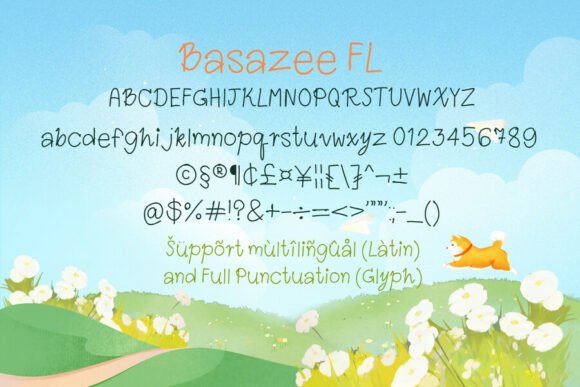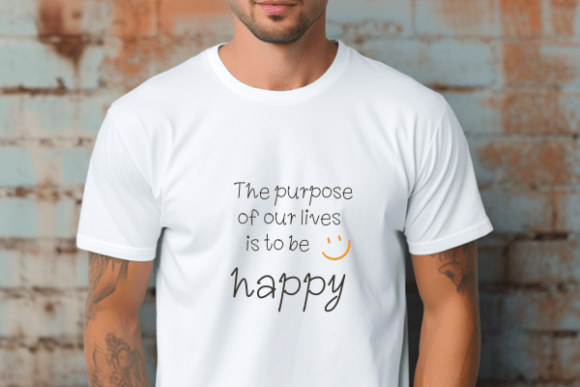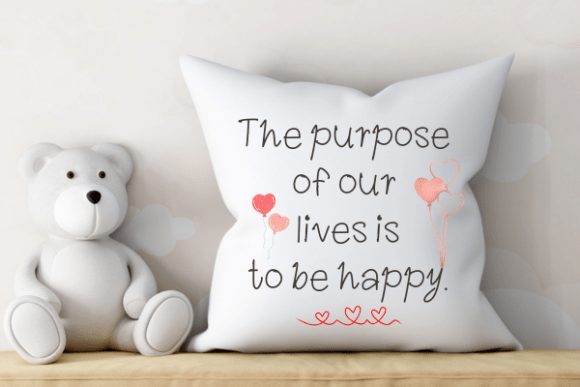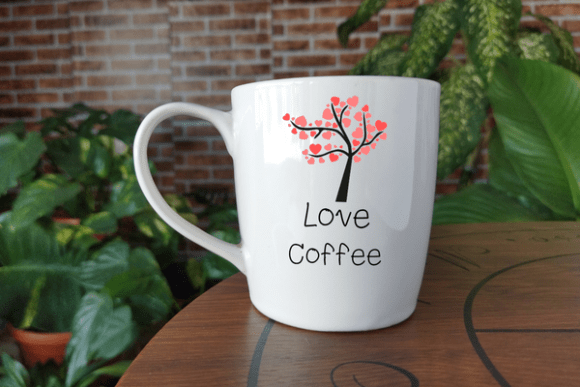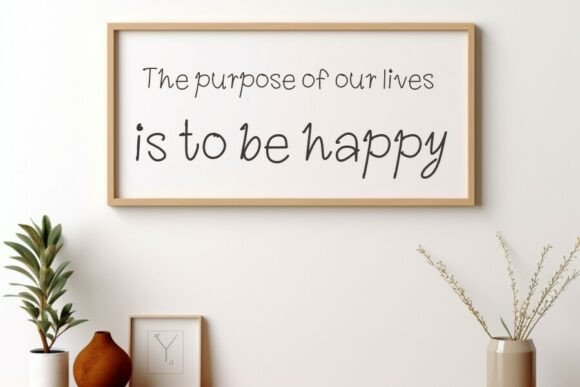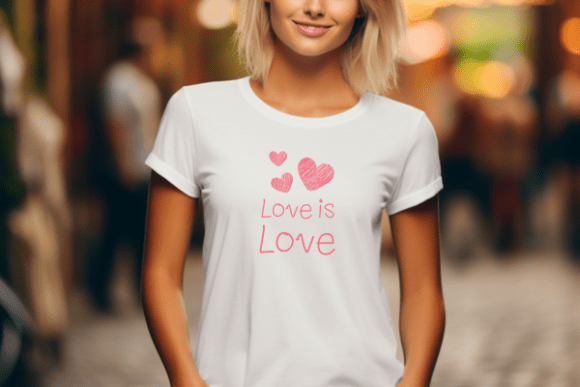
Bring Your Designs to Life with the Quirky Charm of Basazee Fl Font
You know that moment when a spark of creativity hits you, and you can’t wait to bring your idea to life? Maybe it’s a new logo design, a branding concept, or a social media campaign that’s been brewing in your mind. Whatever it is, you need a font that can match the playfulness and charm of your vision. That’s where the Basazee Fl Font comes in – a delightful, handwritten font that’s sure to add a personal touch to your creative projects.
As a designer, you’re constantly on the lookout for unique fonts that can elevate your work. Basazee Fl Font is a valuable addition to your toolkit, offering a friendly and approachable aesthetic that’s perfect for a wide range of applications. Whether you’re creating a children’s book, a food blog, or a lifestyle brand, this font is sure to bring a smile to your audience’s faces.
- Font Family: Basazee Fl is a unique, handwritten font family.
- Character Set: Includes a wide range of characters, including uppercase and lowercase letters, numbers, and punctuation.
- Unique Characteristics: Features a distinctive, flowing style with subtle variations in line width and letterform, giving it a natural, handwritten feel.
Basazee Fl Font Review
Overall, I’d say the Basazee Fl Font has some great qualities, but it also has some limitations. Let’s dive in and explore what works well and what doesn’t. ✨
- Unique aesthetic: The Basazee Fl Font has a distinct, hand-drawn feel that sets it apart from other fonts.
- Expressive: The font is great for conveying emotions and adding a touch of personality to your designs.
- Legibility: Despite its unique look, the font is still relatively easy to read, especially at larger sizes.
- Limited versatility: The Basazee Fl Font is best suited for informal or creative projects, as its unique style may not be suitable for formal or corporate designs.
- Font size limitations: While the font is legible at larger sizes, it can become quite messy at smaller sizes, making it difficult to read.
- Customization limitations: The font’s unique style can make it challenging to customize or pair with other fonts.
The Basazee Fl Font is a great choice for designers looking to add some personality and flair to their projects. While it may have some limitations, its unique aesthetic and expressive qualities make it a great addition to any design arsenal.
The Basazee Fl Font is ideal for use in:
– Creative and artistic projects
– Branding and identity design
– Digital signage and displays
– Print materials and publications
– Social media graphics and advertising
To get the most out of the Basazee Fl Font, try experimenting with different font sizes, colors, and combinations with other fonts. You can also use it in conjunction with other design elements, such as images and graphics, to create visually appealing and effective designs.